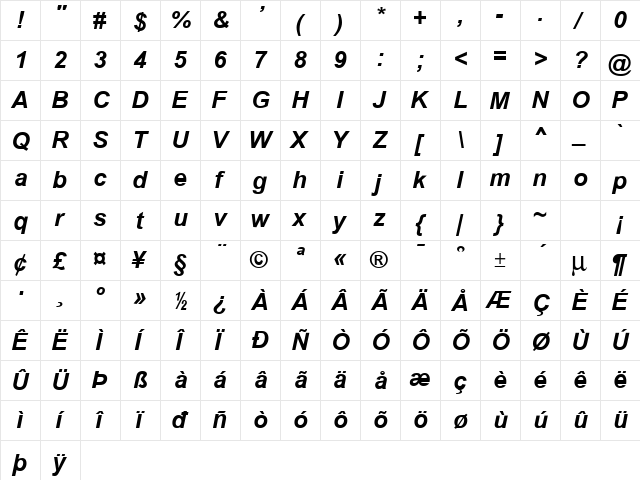
Dixon Bold Ital Normal
Design Context for Dixon Bold Ital Typeface
Dixon Bold Ital is a composed and adaptable typeface that performs quietly and consistently across a wide range of design contexts. Its bold stroke weight gives it real presence on the page.